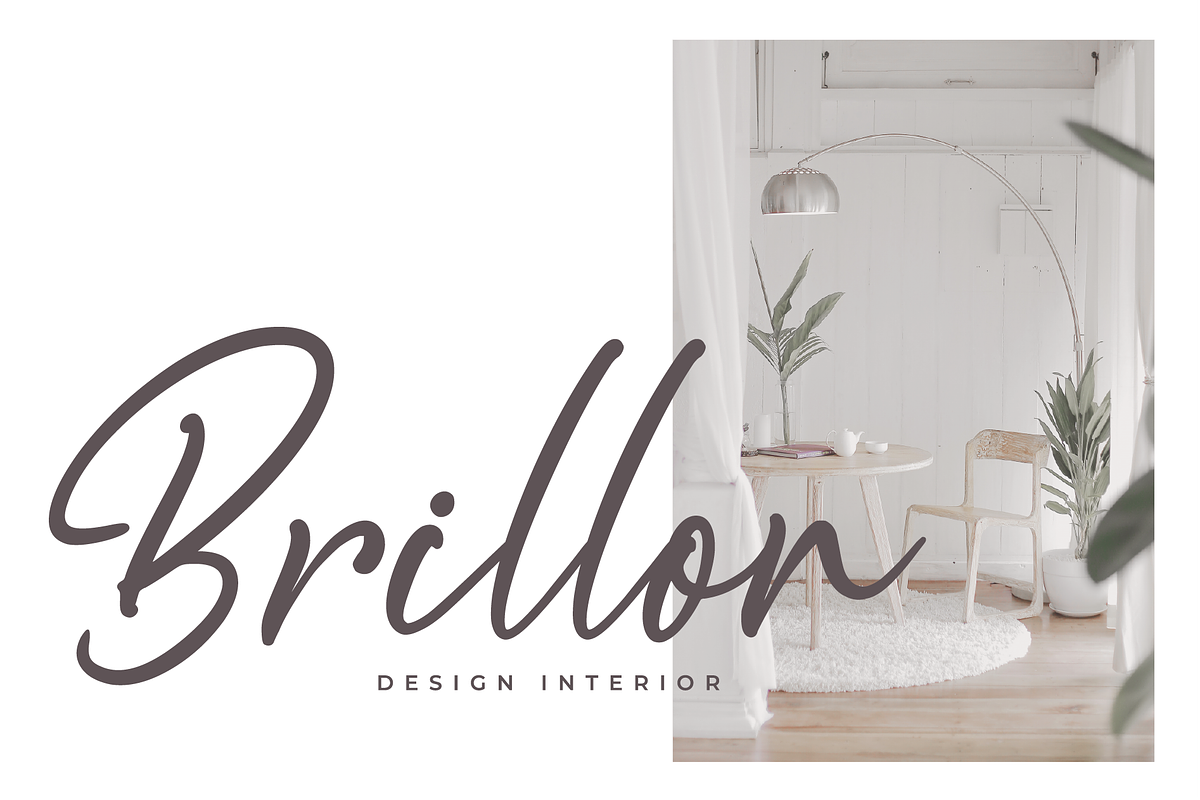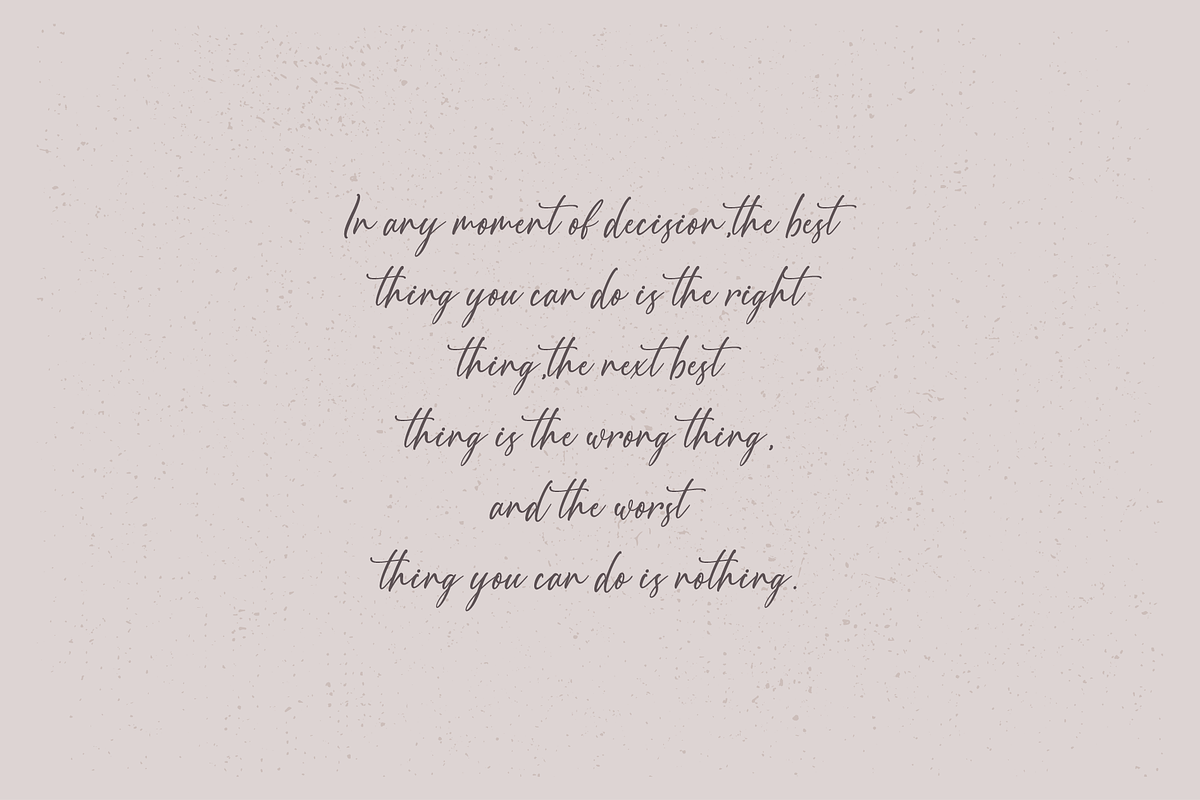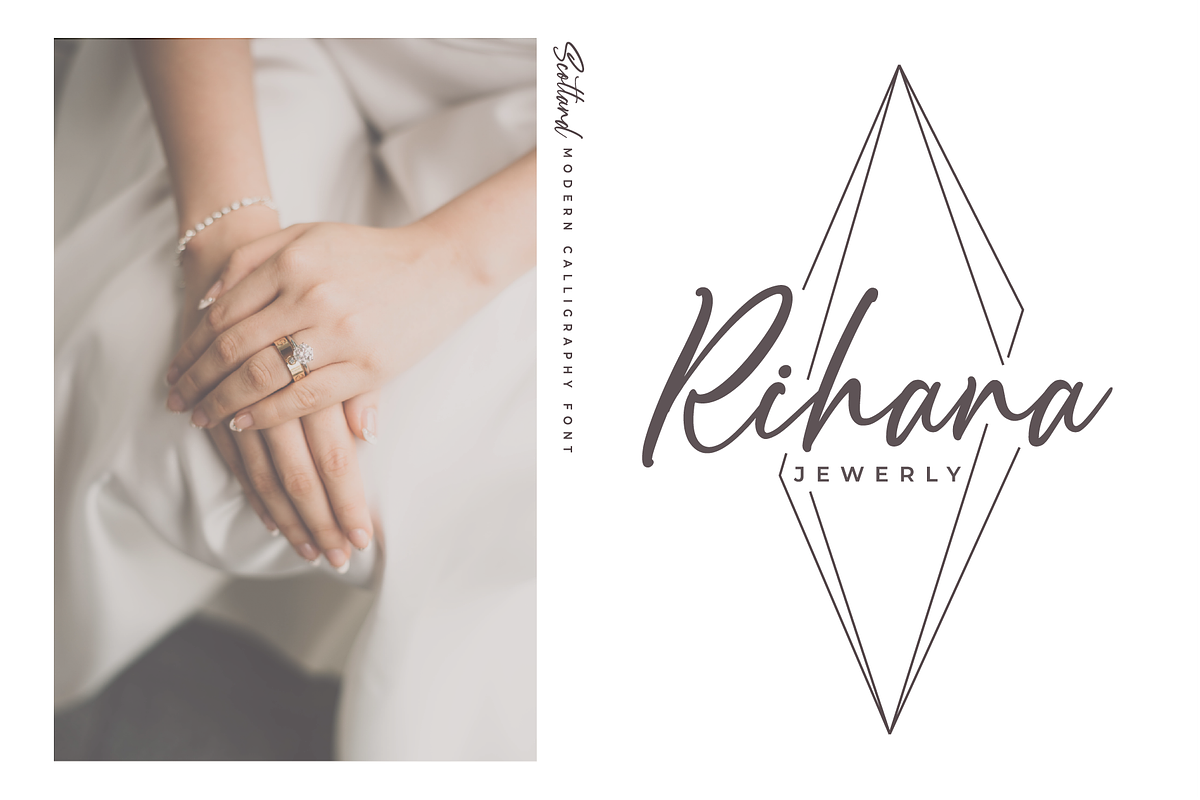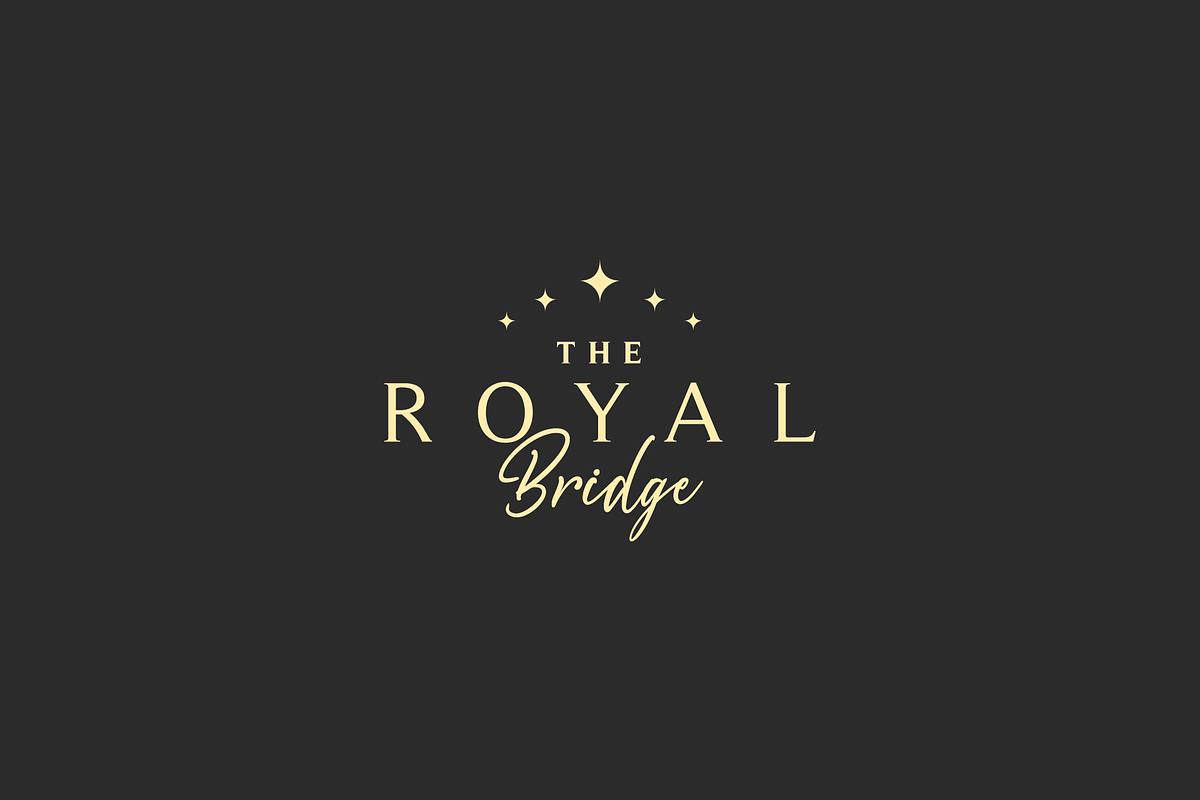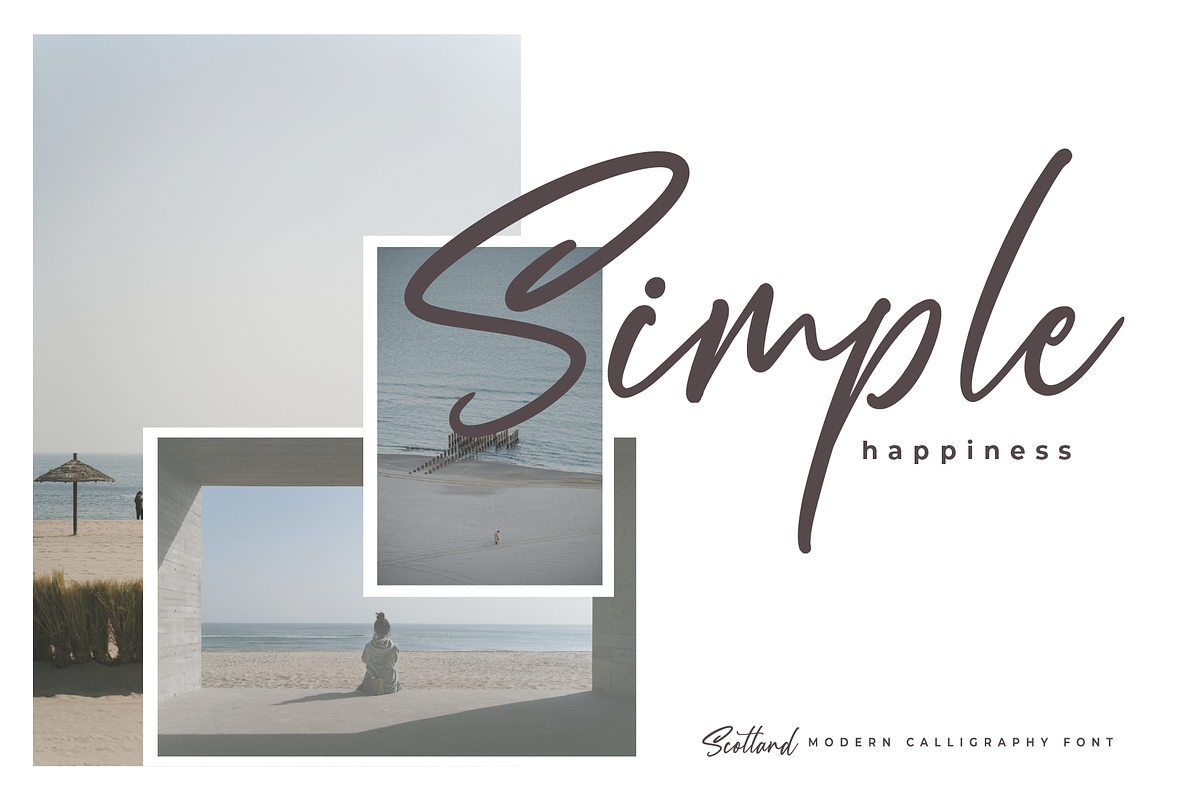
Scotland - Modern Calligraphy font
Scotland is special calligraphy font. It is perfect for branding, wedding invites and cards, and maybe for red wine label. this font comes with full set of uppercase and lowercase letters, multilingual symbols, numerals, punctuation.
- this font comes with full set of uppercase and lowercase letters, multilingual symbols, numerals, punctuation.
Why Scotland - Modern Calligraphy font is worth a look
Scotland - Modern Calligraphy font by Pen Culture fits naturally into Branding, posters, packaging, typography.